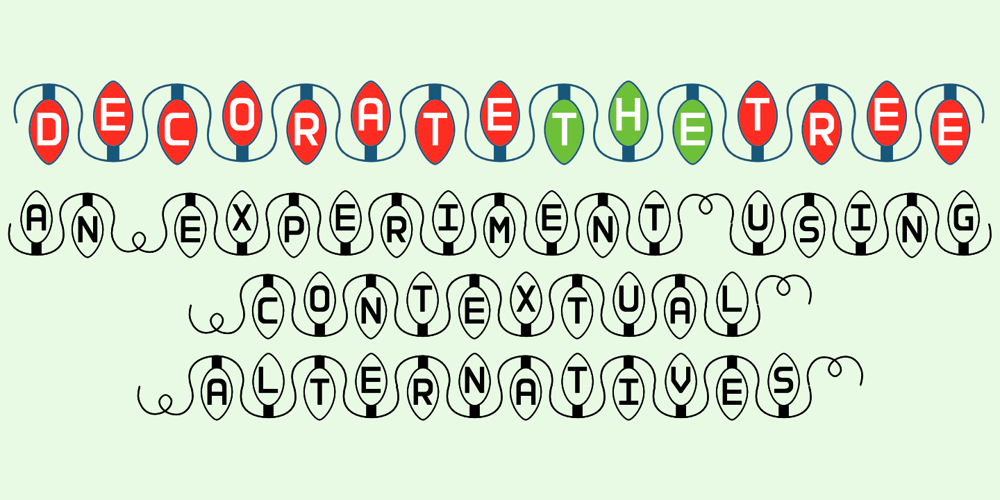
Decorate The Tree Font Family was designed by Robert Schenk and published by Ingrimayne Type. Decorate The Tree contains 2 styles and family package options. DecorateTheTree is a festive novelty font family containing two styles designed to be used in layers. Each style has letters on Christmas-tree lights. The regular style has clear bulbs and the bold style has filled bulbs. Some characters are on standing bulbs and others on hanging bulbs and these two sets are made to alternate with the OpenType contextual alternatives (calt) feature. To use only one set of bulbs, this feature must be turned off and character spacing adjusted, though why anyone would want to use only one set is a mystery. These fonts are monospaced. They are useful to display a holiday message not just in words but in the lettering itself. (The characters on the bulbs are derived from the font SansduskiMono.)